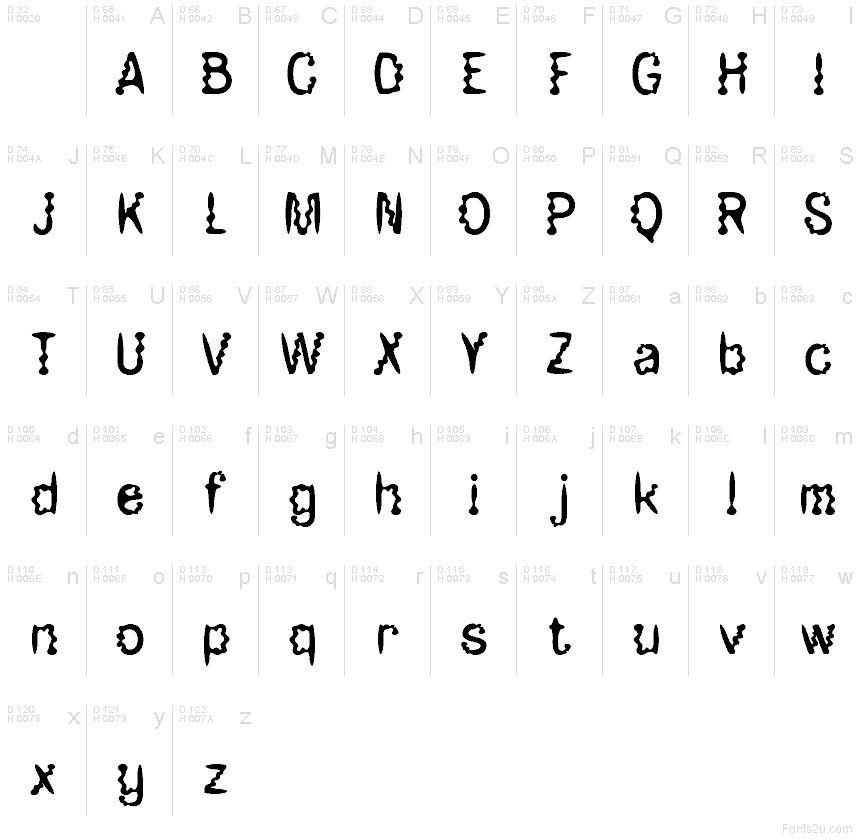
CS Rigore Drawn font by Craft Supply Co. is a free distorted display font. Built within the CS Rigore family, it leans into a gooey, hand-drawn vibe—thick strokes wobble like wet ink, counters feel puddled, and edges ripple with organic tremor. The result is playful but a little eerie, with an off-kilter rhythm that pulls the eye and refuses to be neat.
Using CS Rigore Drawn, headlines hit with a drippy, tactile presence that shines on horror posters, Halloween flyers, indie zines, album art, streetwear logos, and escape-room branding. This free font works beautifully at large sizes; pair it with a crisp geometric sans for body copy to keep the chaos anchored.